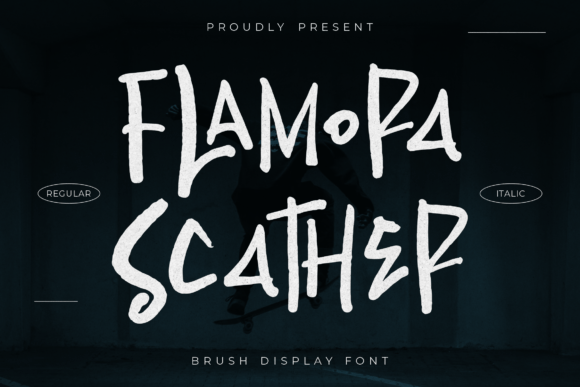
Introduction to Flamora Scather Font
Flamora Scather is a brush display font suitable for any projects such as logos, branding projects, homeware designs, product packaging, mugs, quotes, posters, shopping bags, t-shirts, book covers, name card, invitation cards, greeting cards, label, photography, watermark, special events, and all your other lovely projects that need a beautiful script taste.
Why Choose Flamora Scather Font?
Flamora Scather Font offers exceptional quality and versatility, making it a valuable addition to your design toolkit. Whether you’re creating for personal projects or commercial use, Flamora Scather Font delivers professional results.